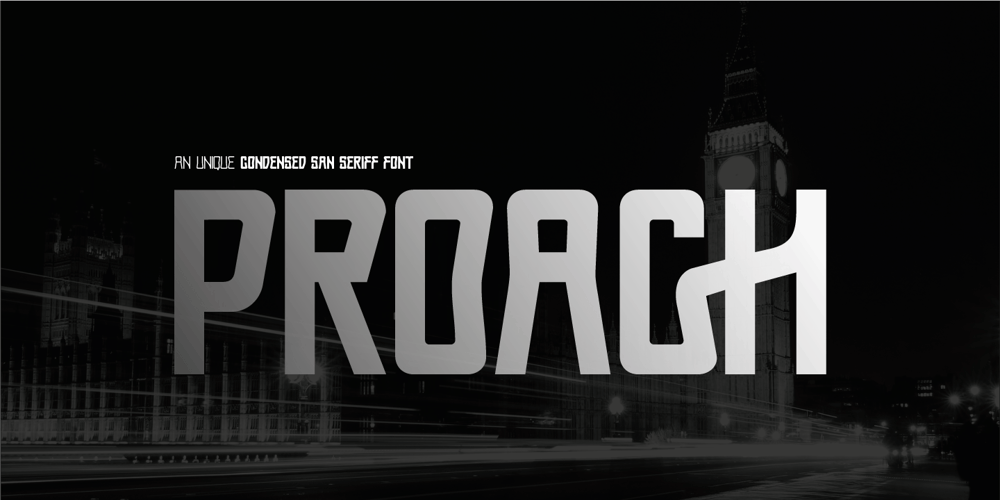
Proach
Proach font
Proach Font Family was designed by Jarnawi Saja and published by Grontype. Proach contains 4 styles and family package options. Poarch is a clean and modern condensed font, the font well designed as a sans serif font with all caps. It has round tip angle and different style as a sans font in common. The font is perfect for any project such as Brochure/Magazine Header, Logo Tagline, Flyer Titles and it also can be a paragraph text font.Features: Uppercase and Lowercase Regular, Light and Italic Version Numeral and Punctuation Ligatures Multilingual Support Modern Look Thankyou for Choosing This fontRegards, Grontype